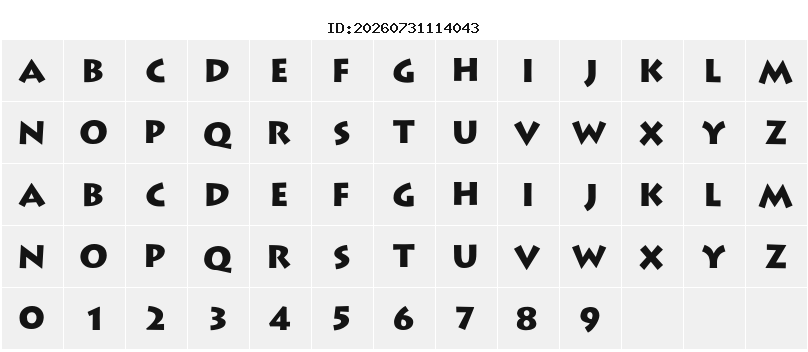
Liffo Preview
• Font Name: Liffo
• Full Font Name: Liffo
• PostScript Name: Lithograph
About Liffo.ttf
Liffo.ttf is a modern, elegant sans-serif font designed for ultimate readability and visual harmony. Perfect for branding, headlines, web design, and print materials.